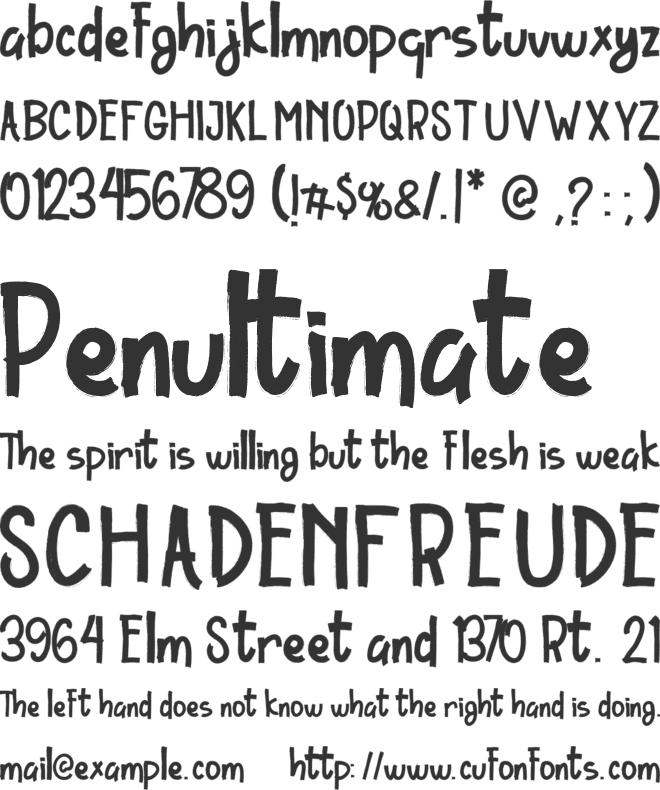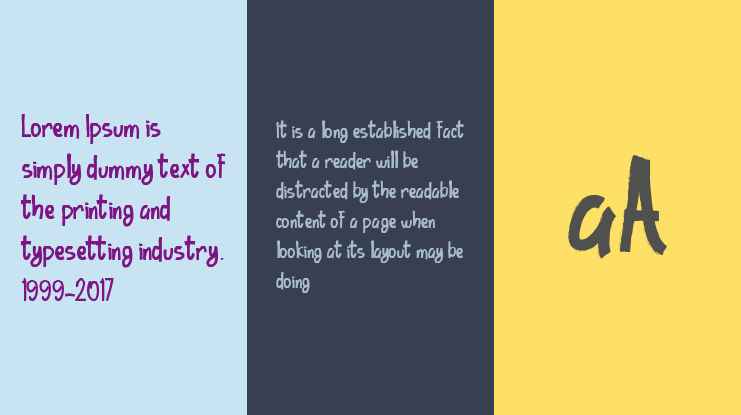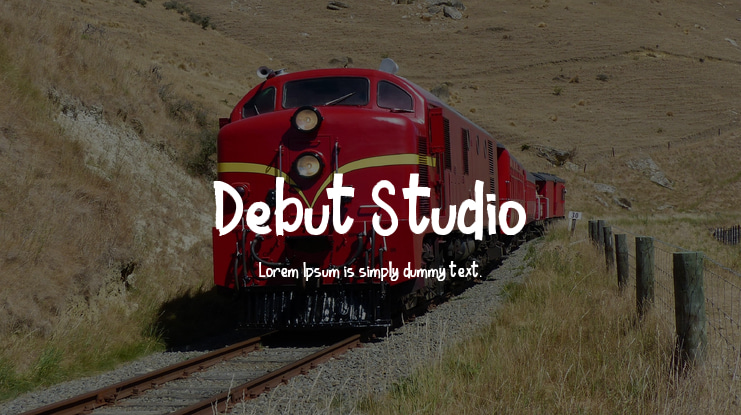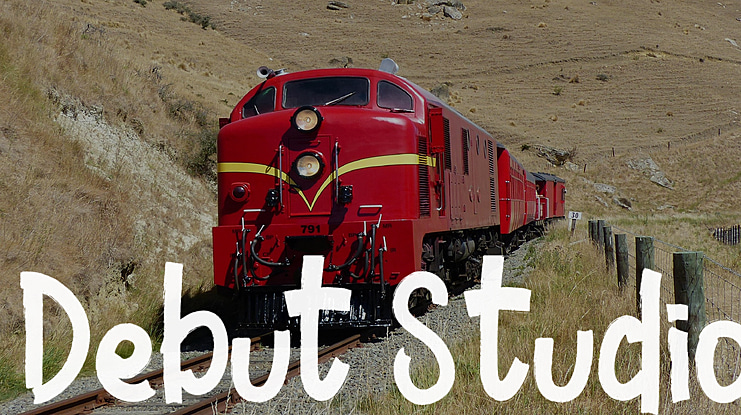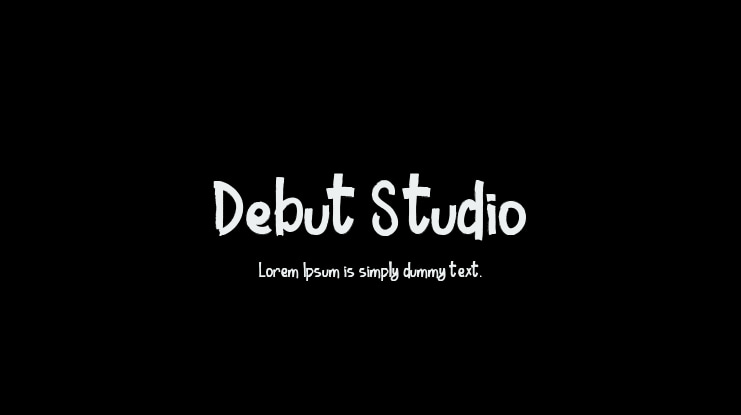
Debut Studio Font
Debut Studio
Introducing Ordinary Brush Font a simple brush font
Suitable for use as the title, either used as a logo, title product, store, and your artwork.